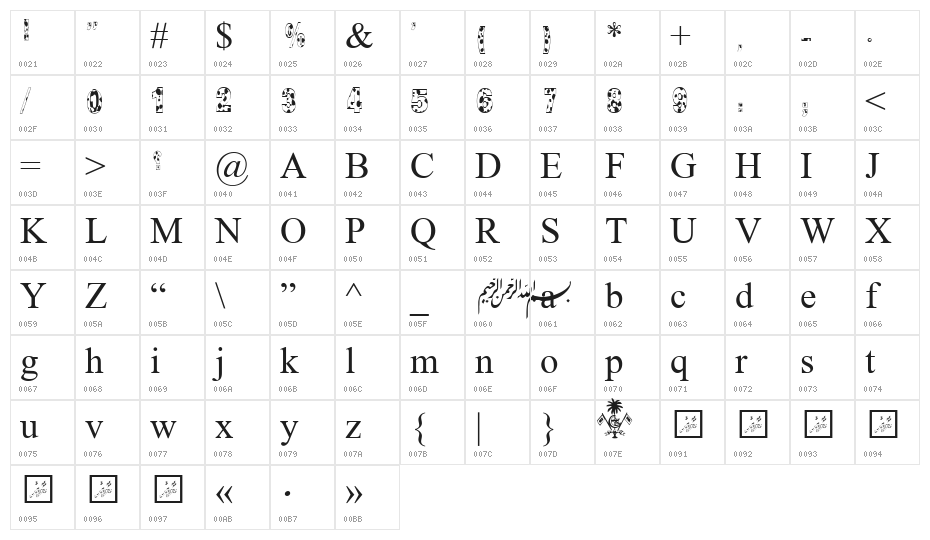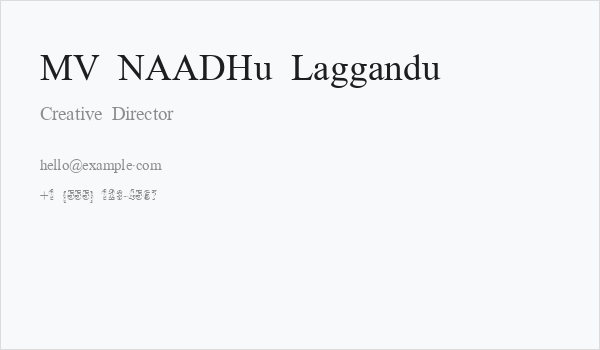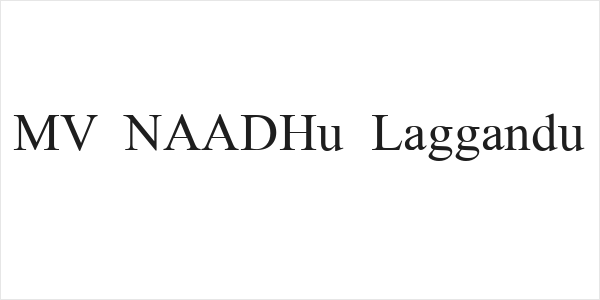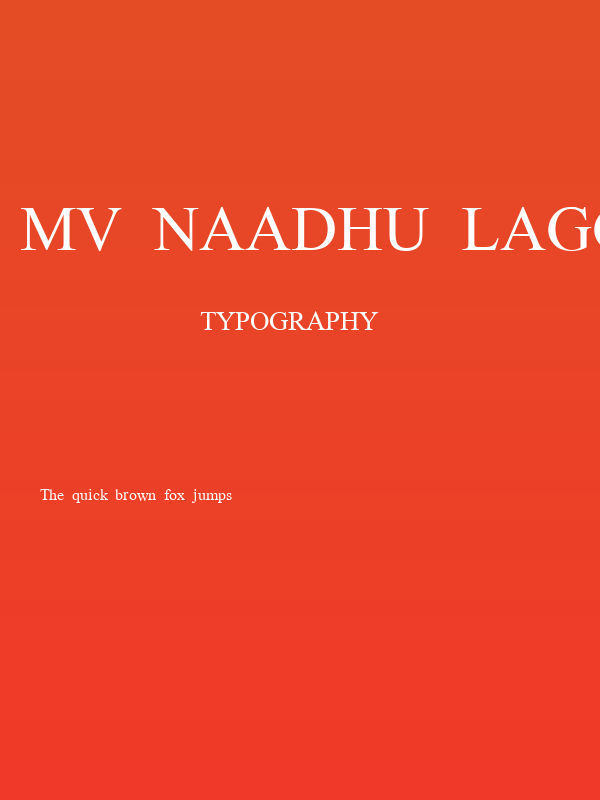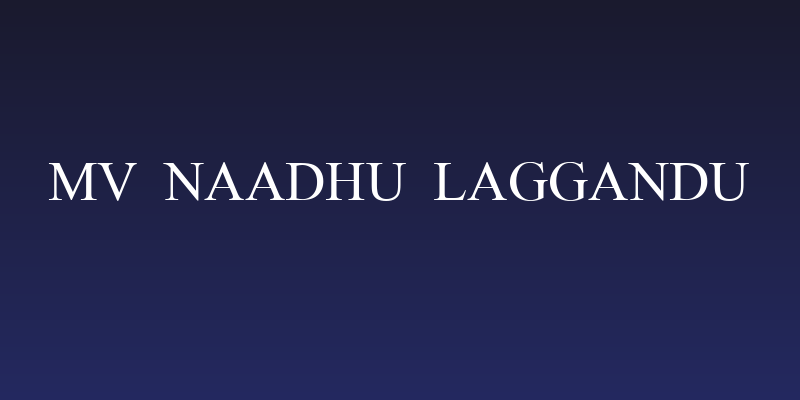
MV NAADHu Laggandu Font
MV NAADHu Laggandu Description
This font features a classic serif style with elegant, thin strokes and slight variations in thickness, giving it a sophisticated and timeless appearance. The uppercase letters are bold and commanding, while the lowercase letters maintain a graceful flow. The numbers are uniquely designed with a playful, spotted pattern, adding a decorative touch that contrasts with the otherwise traditional letterforms. Special characters are consistent with the serif style, maintaining the font's overall elegance. This combination of classic serif elements with decorative numerals makes it versatile for both formal and creative applications.